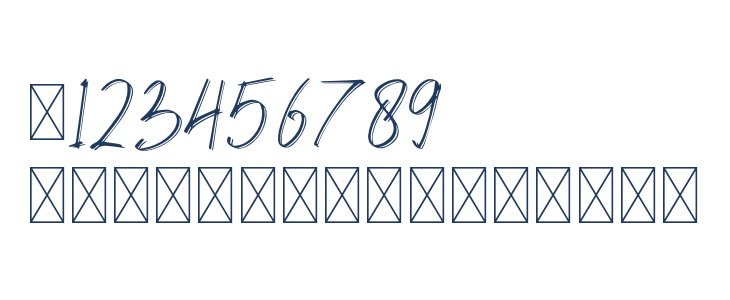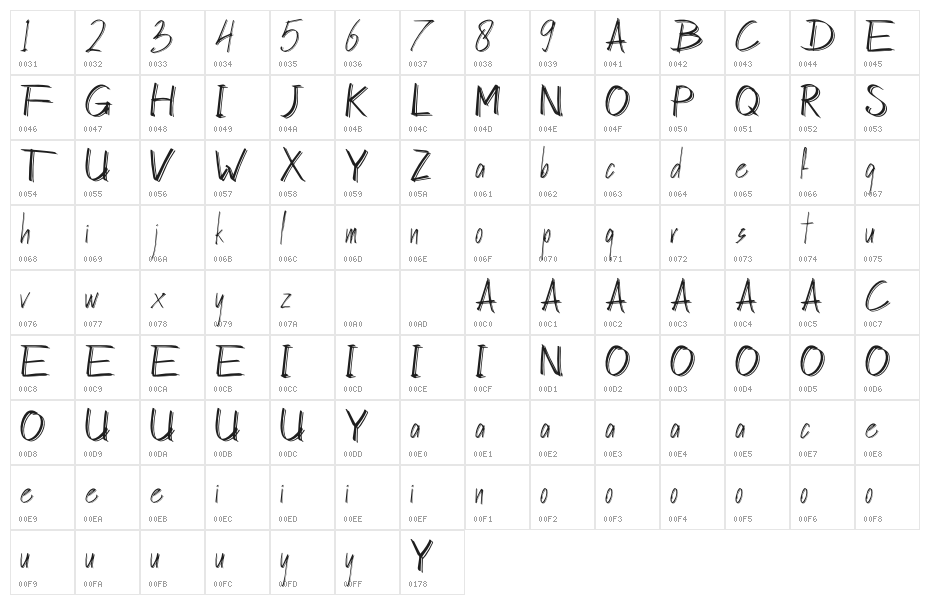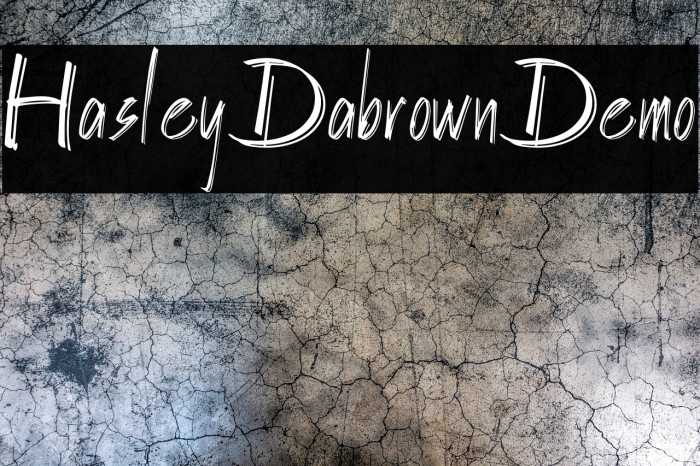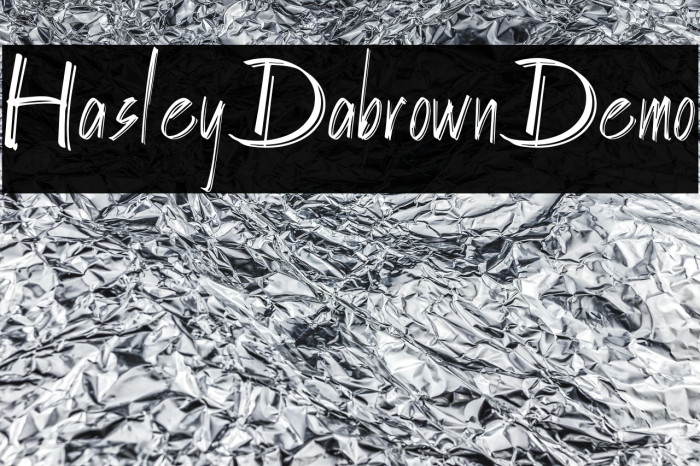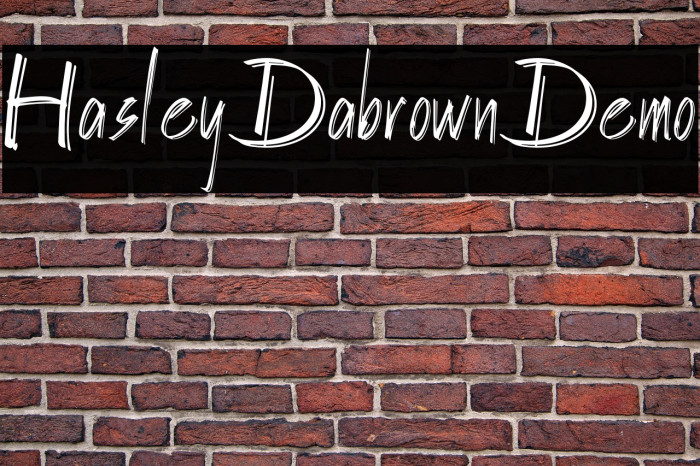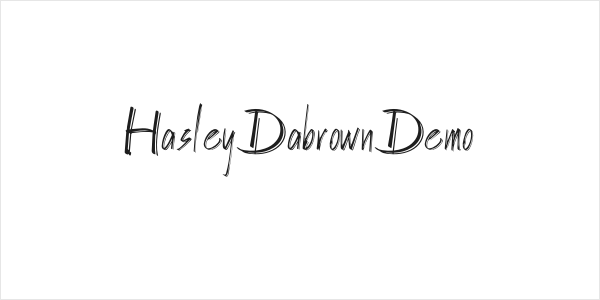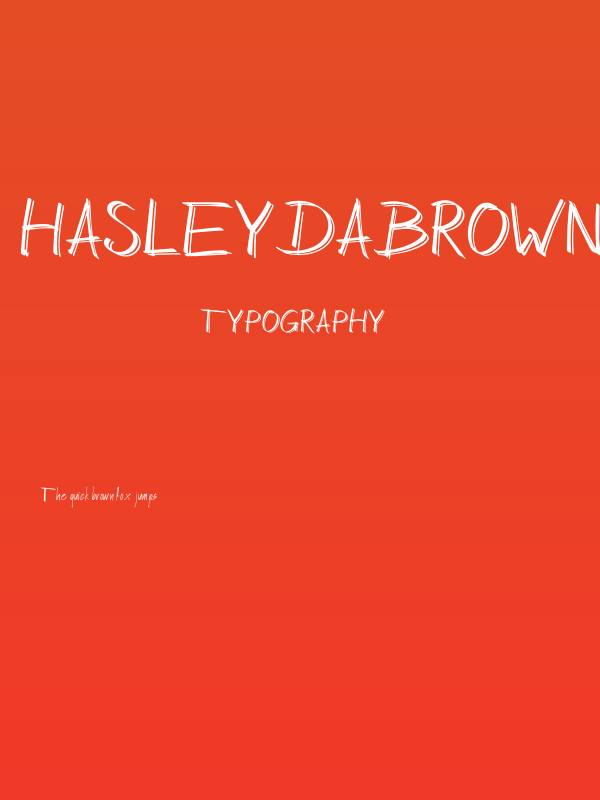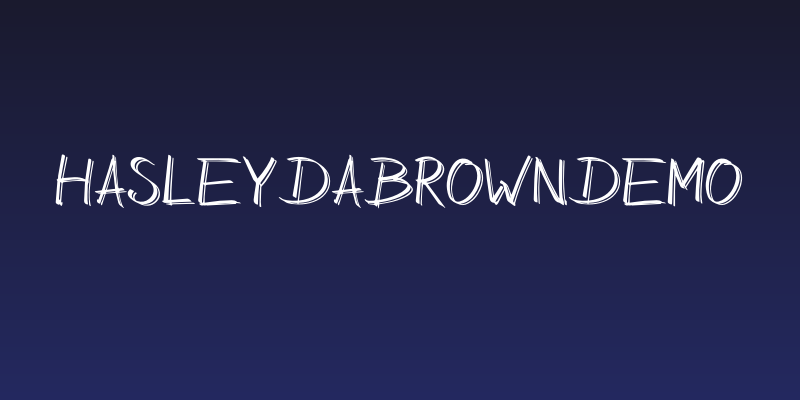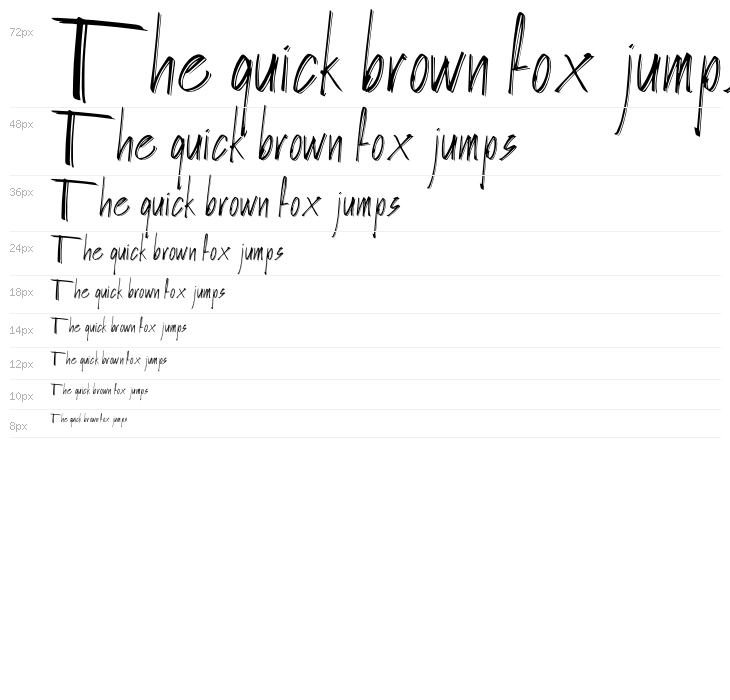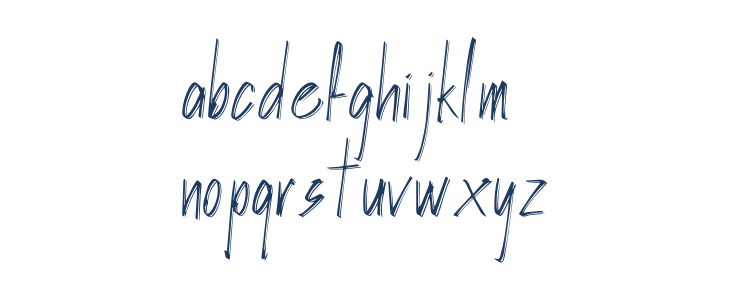
HasleyDabrownDemo Font
HasleyDabrownDemo Description
This font features a dynamic and playful handwritten style, characterized by its irregular strokes and casual appearance. The uppercase letters are bold and slightly slanted, giving a sense of movement and energy. The lowercase letters maintain a consistent flow, with some letters extending below the baseline, adding to its informal charm. Numbers are similarly styled, with a lively and spontaneous feel. The special characters are integrated seamlessly, maintaining the overall aesthetic. This font is perfect for projects that require a personal touch or a creative flair.
| Proposed Projects | Ideal for greeting cards, invitations, personal branding, and creative posters. |